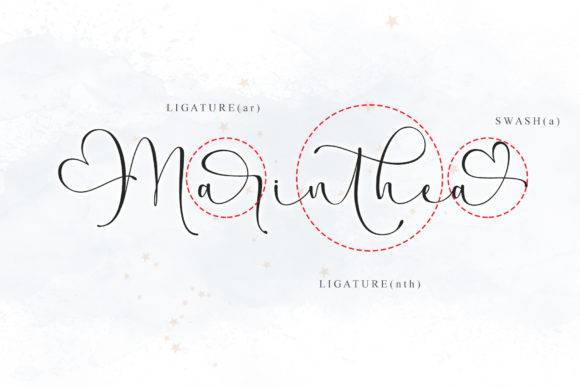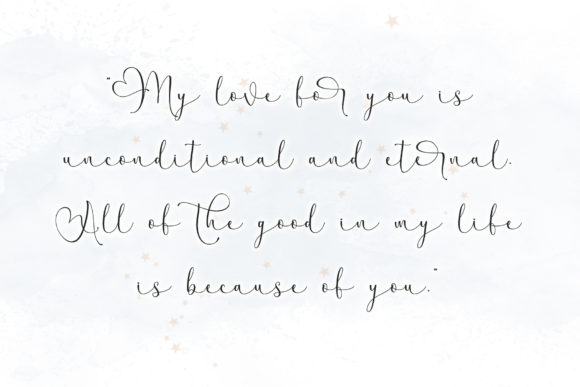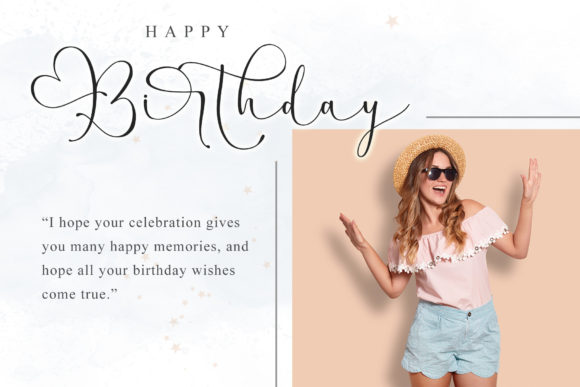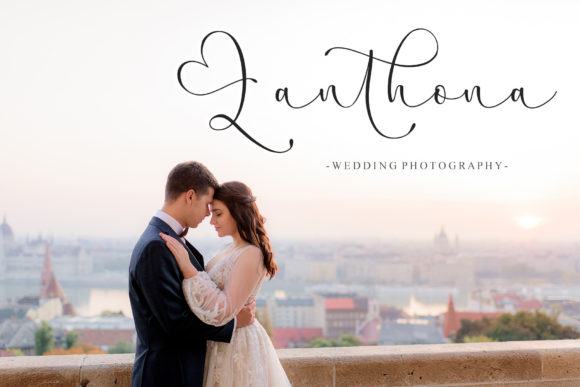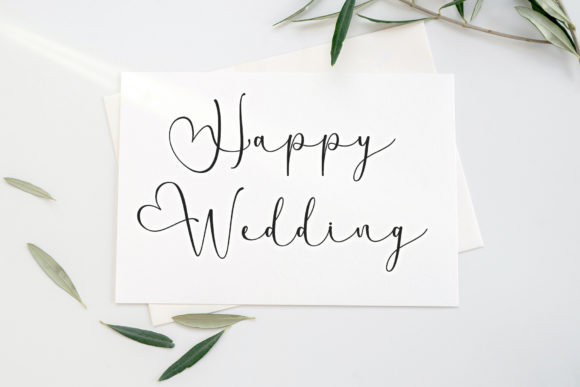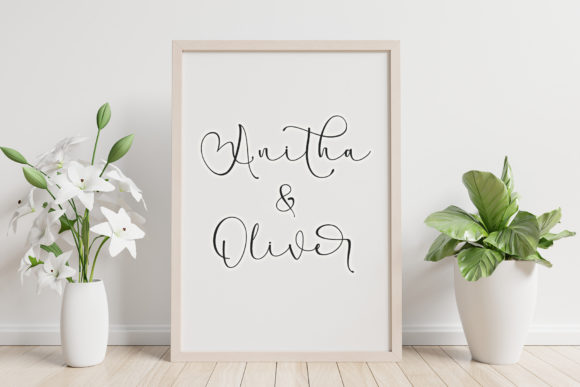
Introduction to Marinthea Font
Marinthea is a stylish and incredibly elegant script font.
It looks stunning on wedding invitations, thank you cards, quotes, greeting cards, logos, business cards and every other design which needs a handwritten touch This font is PUA encoded which means you can access all of the glyphs and swashes with ease.